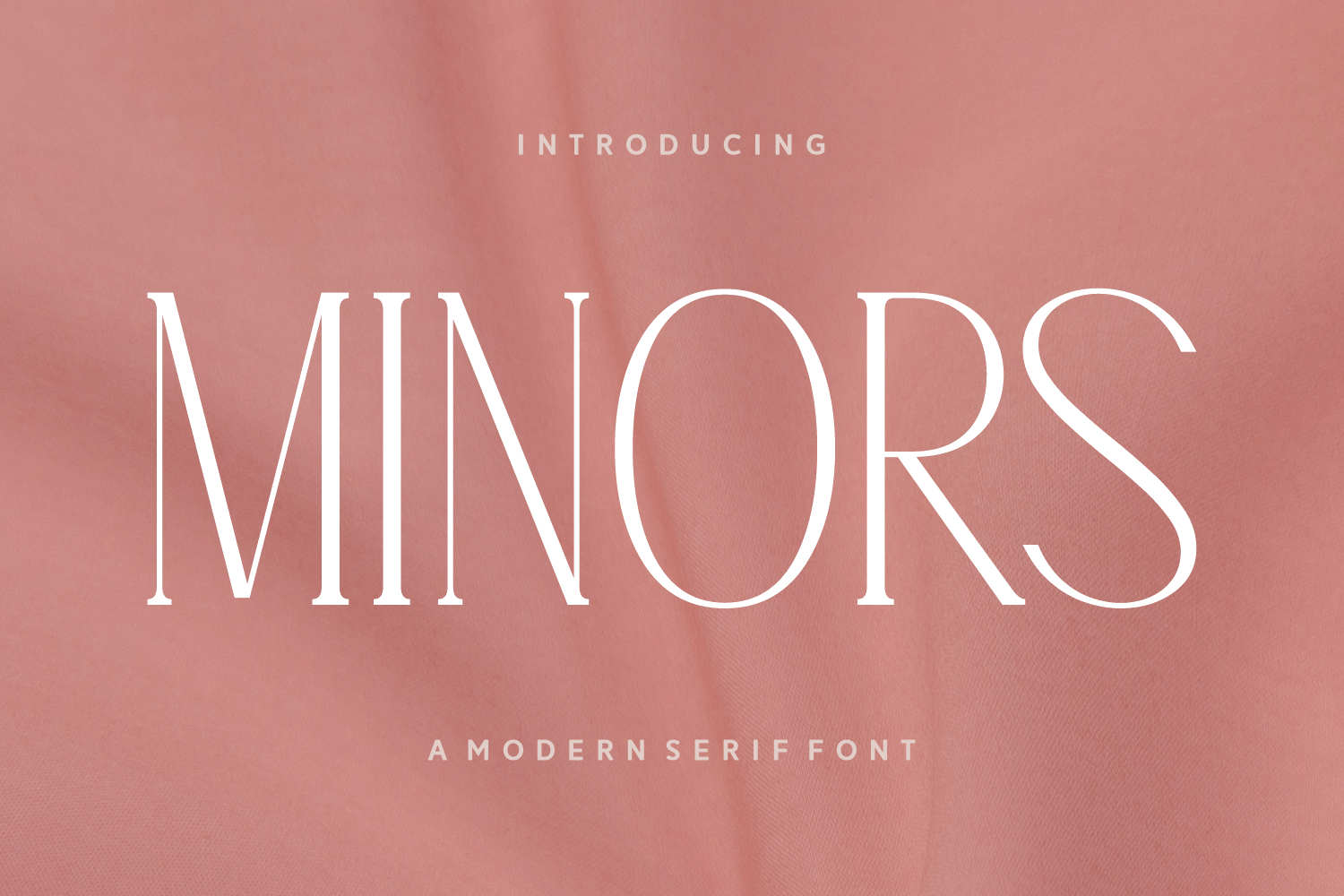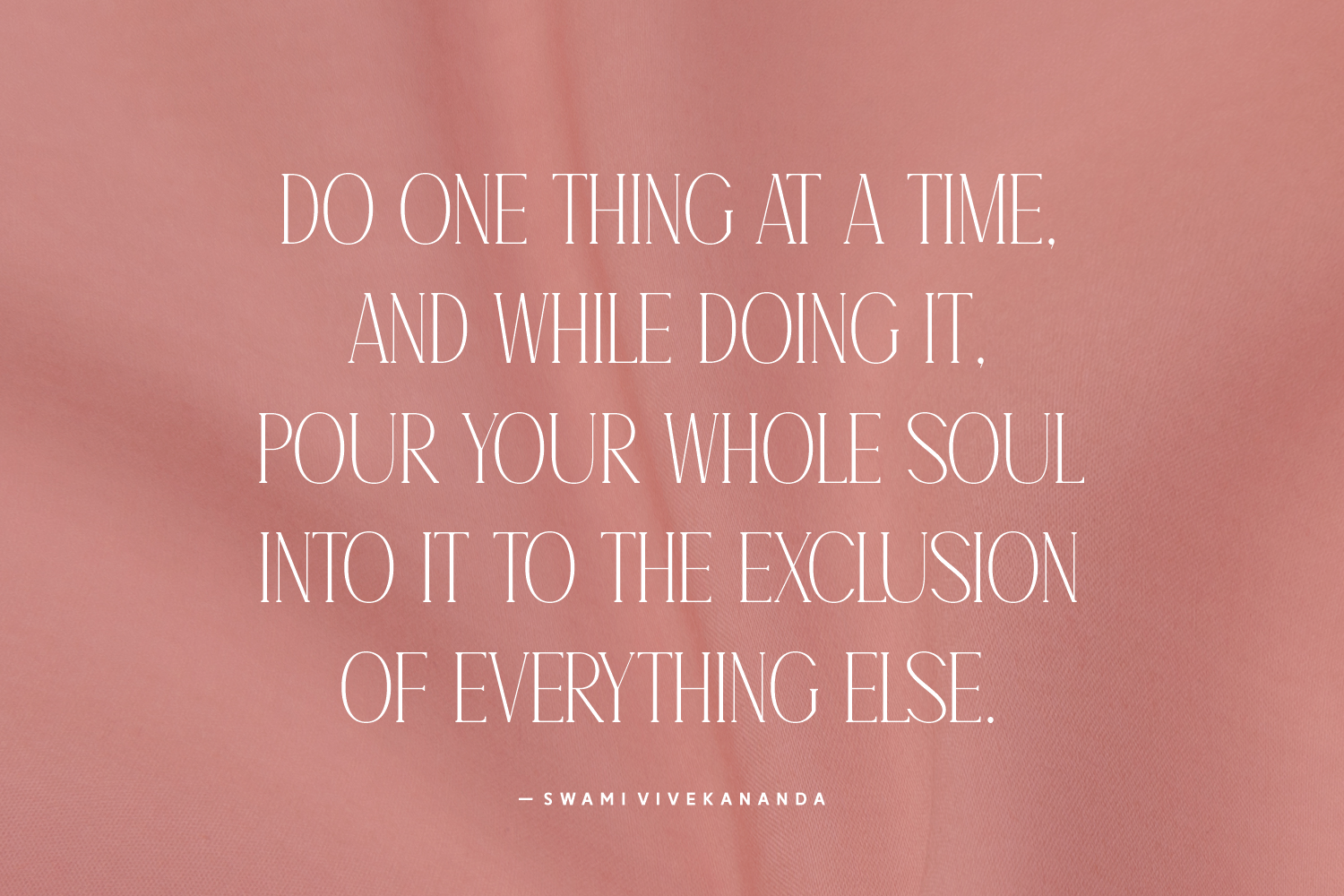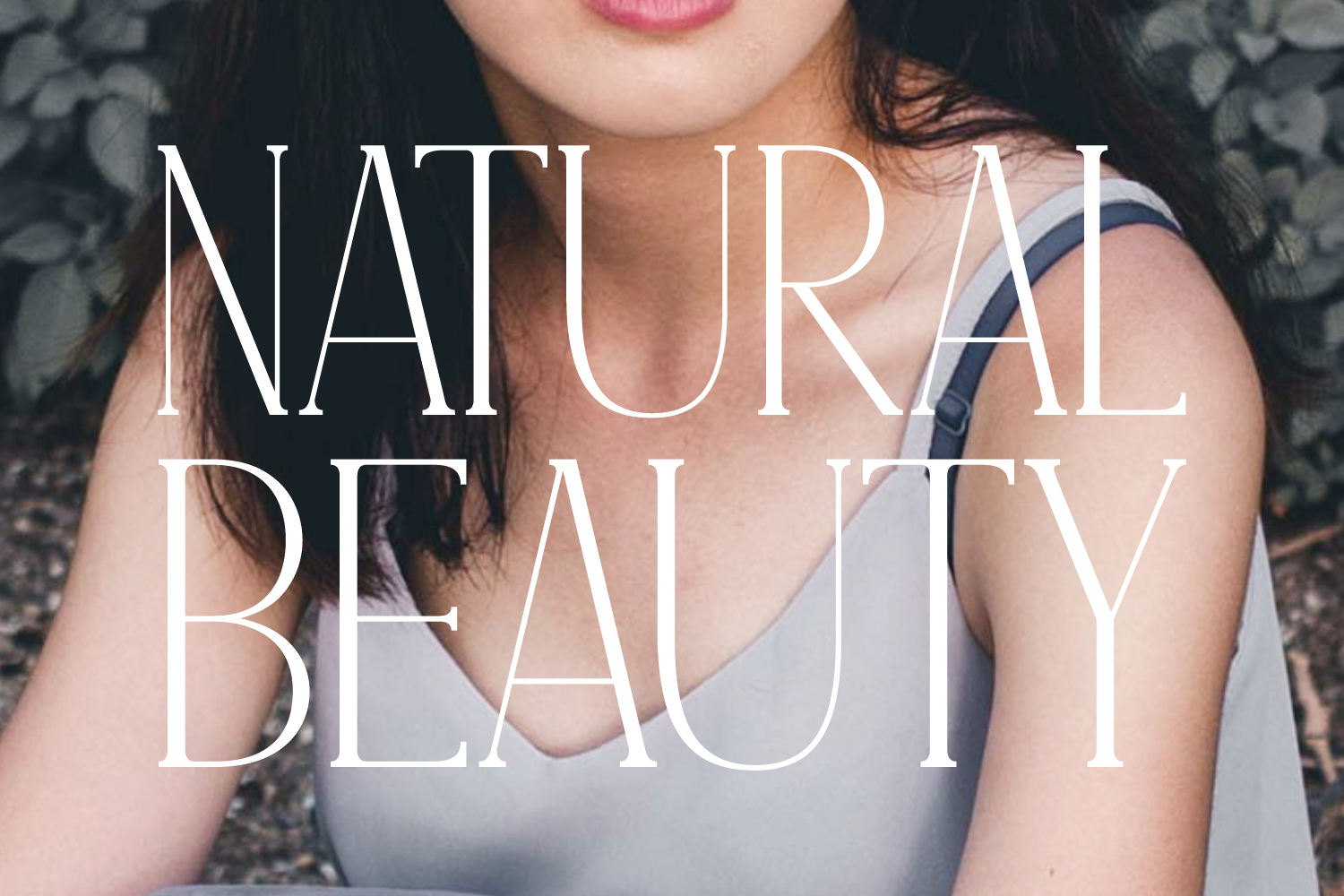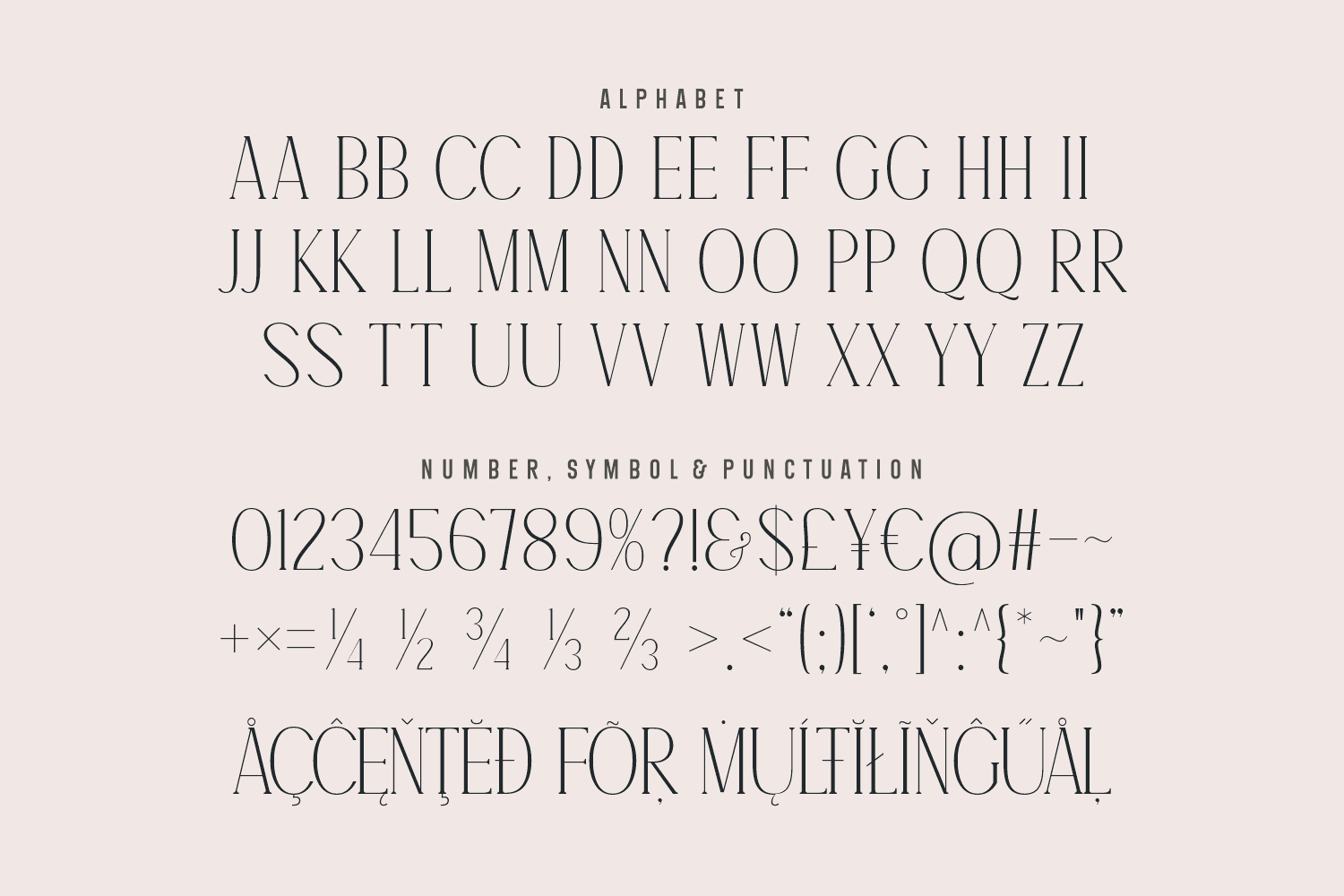
Minors is a sleek and minimalist modern serif font with an ultra-tall silhouette and refined elegance. With a whisper-thin elegance and commanding vertical presence, Minors speaks with clarity and poise, making any project feel upscale and modern. A flawless choice for designers seeking clean sophistication.